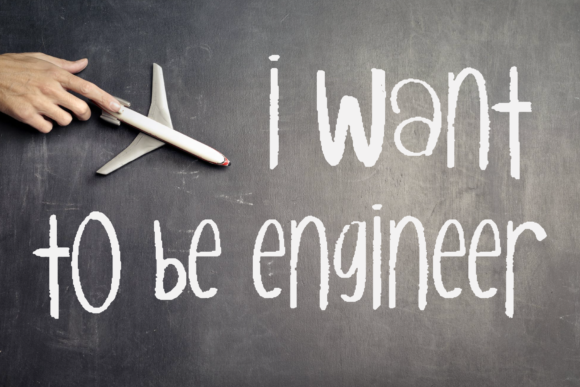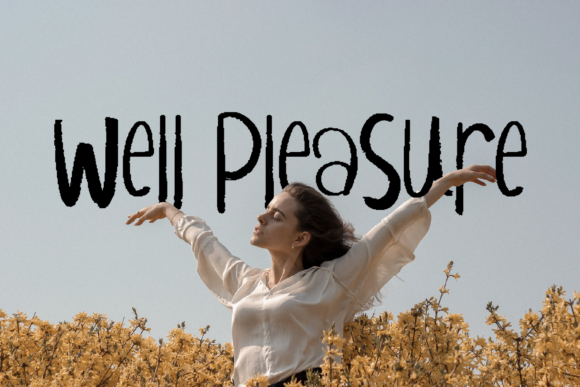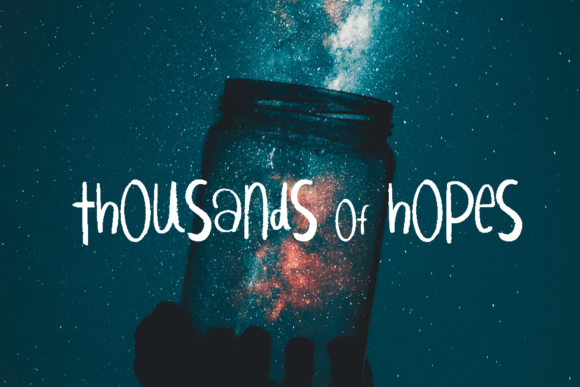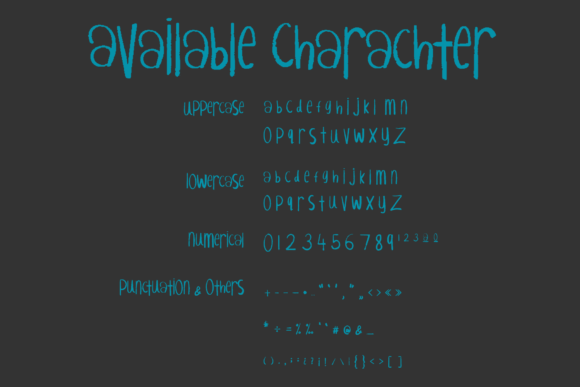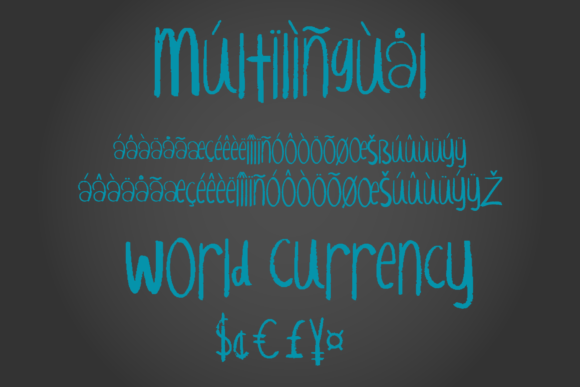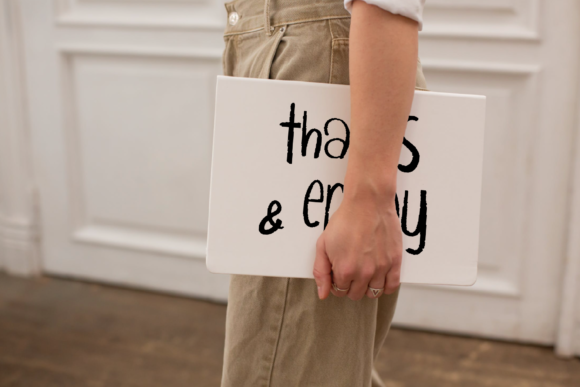
Introducing Chalky View Font: The Perfect Handwritten Font for Chalkboard Quotes and Teaching Materials
Are you a designer, teacher, or crafter looking for a font that can add a personal and realistic touch to your chalkboard quotes or teaching materials? Look no further than Chalky View Font! This beautiful handwritten font is designed to mimic the authentic look and feel of chalkboard writing, making it perfect for a variety of creative projects.
What is Chalky View Font?
Chalky View Font is a carefully crafted handwritten font that is designed to replicate the look and feel of traditional chalkboard writing. Its unique and authentic design makes it an ideal choice for creating chalkboard quotes, teaching materials, and other educational resources. With Chalky View Font, you can add a personal touch to your designs and make them stand out from the crowd.
Key Features of Chalky View Font
• Authentic Look and Feel: Chalky View Font is designed to mimic the look and feel of traditional chalkboard writing, complete with subtle imperfections and texture.
• Handwritten Style: This font features a beautiful handwritten style that is both elegant and easy to read.
• Versatile: Chalky View Font can be used for a variety of creative projects, including chalkboard quotes, teaching materials, posters, and more.
Benefits of Using Chalky View Font
So why choose Chalky View Font for your creative projects? Here are just a few benefits of using this amazing font:
• Adds a Personal Touch: Chalky View Font adds a personal and realistic touch to your designs, making them more engaging and effective.
• Perfect for Educational Resources: This font is ideal for creating educational resources, such as teaching materials, worksheets, and posters.
• Great for Chalkboard Quotes: Chalky View Font is perfect for creating chalkboard quotes that are both inspiring and visually appealing.
• Versatile: This font can be used for a wide range of creative projects, from digital designs to print materials.
Tips and Tricks for Using Chalky View Font
Here are a few tips and tricks to help you get the most out of Chalky View Font:
• Experiment with Colors: Try using different colors to add depth and interest to your designs.
• Add Texture: Consider adding texture to your designs to give them a more authentic look and feel.
• Play with Size: Experiment with different font sizes to create visual interest and hierarchy in your designs.
Chalky View Font is a beautiful and versatile handwritten font that is perfect for creating chalkboard quotes, teaching materials, and other educational resources. With its authentic look and feel, this font is sure to add a personal touch to your designs and make them stand out from the crowd. Whether you’re a designer, teacher, or crafter, Chalky View Font is a great choice for any creative project.